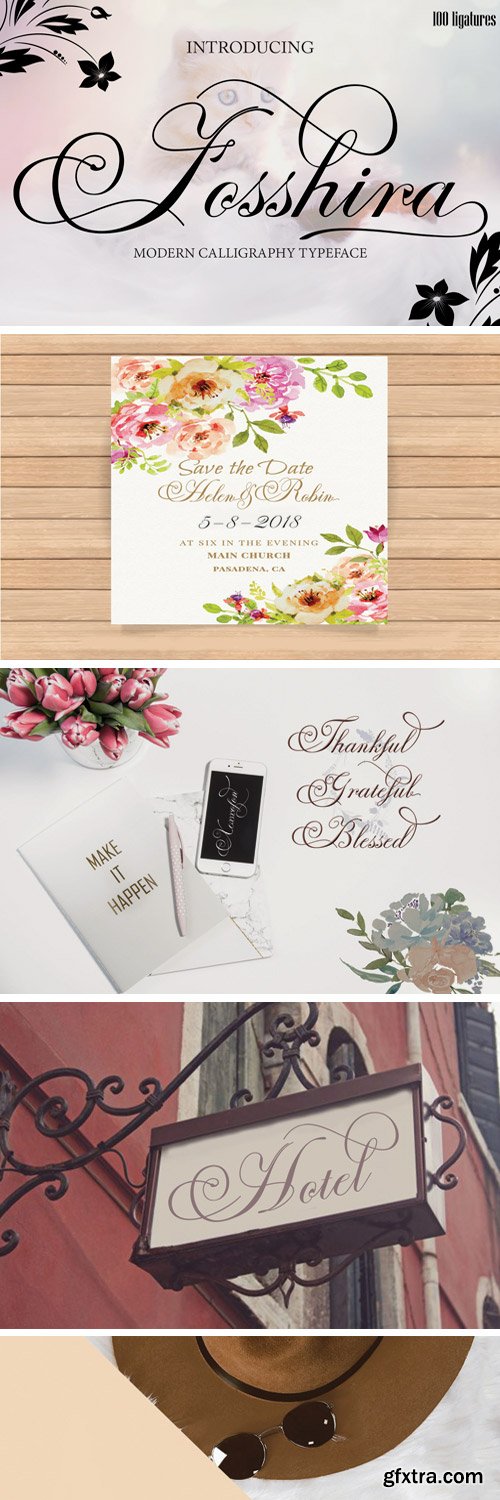
Fosshira script is a new modern variant of calligraphy from handmade text types. present for you to complete your script font collection.
If you are looking to add a touch of elegance to your current project do not miss this one, namely Fosshira Script.You'll get yourself a remarkable collection of modern script font, each featuring many OpenType features and multiple languages. Beautiful, modern and made by hand, this magnificent collection are sure to give your toolbox typeface lift plump feasible. Fosshira Script : A script that is so beautiful with gorgeous grounds, and furnished with fine lines are perfect for use for many purposes. such as title, signature, logo, correspondence, wedding invitations, letterhead, signage, labels, newsletters, posters, badges, Branding, Greeting Cards, etc. It comes with a handy set of Open Type, Stylistic Alternates, stylistic sets, ligatures and swashes and all to add an authentic touch to your design.